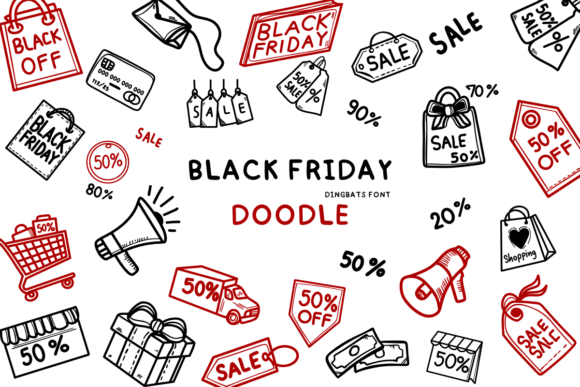
The Ultimate Shopping Spree: How to Add Fun to Your Designs with Black Friday Doodle Font
Have you ever found yourself staring at a blank design canvas, desperately seeking inspiration for that perfect project? I know I have! It’s moments like these that I turn to my trusty font library, searching for that one special font that will bring my design to life. And that’s exactly where the Black Friday Doodle Font comes in – a fun dingbat font that’s bursting with cute and simple drawings related to Black Friday shopping.
This adorable font is packed with icons like shopping bags, sale tags, gift boxes, and more, making it the perfect addition to any design project. Whether you’re creating posters, crafts, or digital designs, the Black Friday Doodle Font is sure to bring a playful touch to your work. And as a designer, you know how valuable it is to have a versatile font that can add a personal touch to your projects.
Black Friday Doodle Font Key Features
- Unique Doodle Design: This font features a playful and whimsical doodle design, perfect for adding a touch of personality to your designs.
- Size and Resolution: This font is designed to be highly scalable, with a minimum recommended size of 12pt and a resolution of 300 DPI for optimal results.
- Unique Characteristics: Each letter is carefully crafted with a mix of hand-drawn and digital elements, resulting in a truly one-of-a-kind font.
- Perfect for Holiday and Seasonal Designs: The Black Friday Doodle Font is specifically designed to add a festive touch to your holiday and seasonal designs, making it perfect for Black Friday, Christmas, and other winter-themed projects.
- High-Quality and Versatile: This font is perfect for a wide range of designs, from digital invitations and social media graphics to print materials and merchandise.
Black Friday Doodle Font Review
Overall, I think the Black Friday Doodle Font is a cute and playful addition to any design project. ✨ It’s perfect for creating a fun and festive atmosphere, especially around holidays like Thanksgiving and Black Friday.
The font includes a variety of doodle elements, such as cartoonish characters, food items, and decorative borders. ✨ These elements can be used to create eye-catching headings, titles, and graphics that add a touch of whimsy to any design.
Some of the benefits of using the Black Friday Doodle Font include:
- High-quality, vector graphics that can be scaled up or down without losing resolution
- A wide range of doodle elements to choose from, making it easy to find the perfect design
- The font may be too playful or childish for more serious or professional designs
- The doodle elements may be too busy or overwhelming if used in excess
- The font may not be suitable for designs that require a more subtle or minimalist aesthetic
Overall, I think the Black Friday Doodle Font is a great addition to any design library, but it’s essential to use it judiciously and in the right context.
Use the Black Friday Doodle Font in combination with bold and italic text styles to create a visually appealing design. Experiment with different font sizes and colors to add depth and contrast to your design.
The Black Friday Doodle Font is perfect for creating eye-catching sales promotions, social media posts, and event invitations. Use it to add a festive touch to your designs and grab the attention of your target audience.